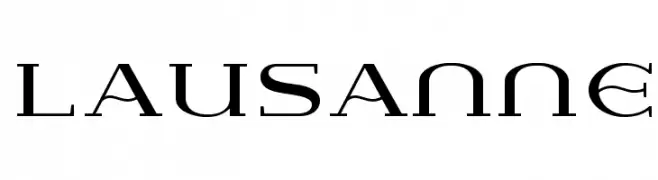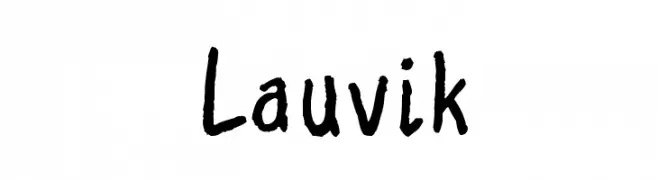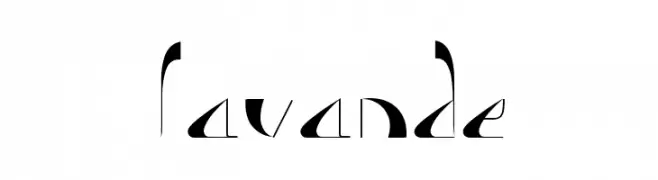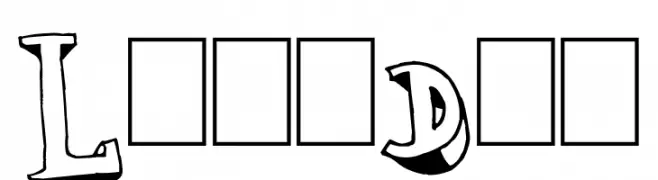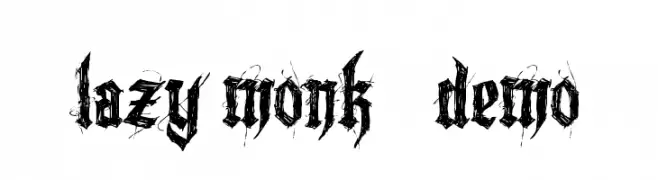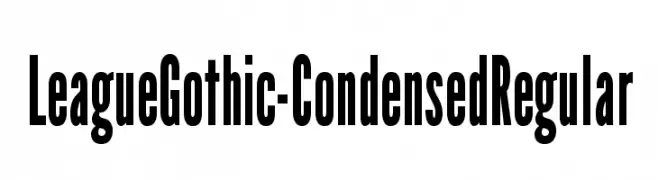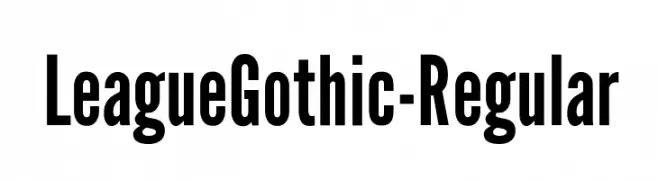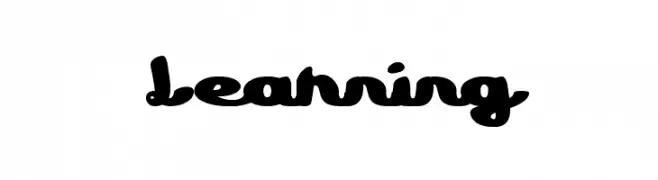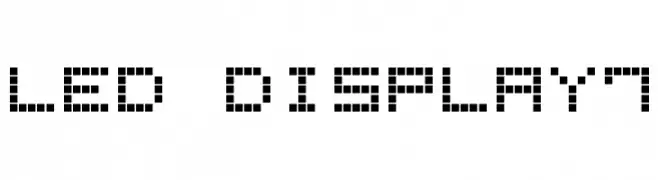
A playful, handwritten font with an informal and friendly style.
An artistic and decorative font with elegant, elongated letterforms and dynamic contrast.
A playful, bold font with irregular shapes and a hand-drawn style.
A bold, decorative font with a modern blackletter style and distressed texture.
A dot matrix font inspired by vintage LCD displays.
A bold, condensed, and italic font with a modern and energetic style.
A bold, condensed typeface with a modern and clean aesthetic.
A bold, condensed, and italicized font with a modern and dynamic style.
A bold, condensed font with tall, narrow letterforms for impactful design.
A bold, condensed font with a modern, streamlined appearance.
A bold, italicized font with tall, narrow letterforms and a dynamic slant.
A bold, condensed sans-serif font with a modern and impactful style.
A bold, playful font with a dripping effect and cartoonish style.
A bold, playful font with decorative curls and loops.
A bold, distressed font with a vintage, industrial feel.
A dot matrix style font inspired by classic LED displays, offering a retro digital aesthetic.
) A classic serif typeface with elegant, balanced letterforms and subtle serifs.
A dot matrix font with a digital, retro aesthetic.
A playful, bold outline font with a hand-drawn aesthetic.
A modern, bold sans-serif font with geometric influences and excellent readability.
A playful, bold handwritten font with a casual and lively style.
A bold, playful font with geometric shapes and smooth curves.
A bold, rounded typeface with a playful and whimsical style.
A bold, italic font with a playful and dynamic style.
A playful, bold italic font with a modern and dynamic style.
A bold, handwritten font with a playful and dynamic style.
A bold, decorative font with sharp, angular edges and a modern aesthetic.
A geometric and modern font with sharp angles and clean lines, ideal for contemporary designs.
A bold, dynamic script font with fluid, interconnected strokes.